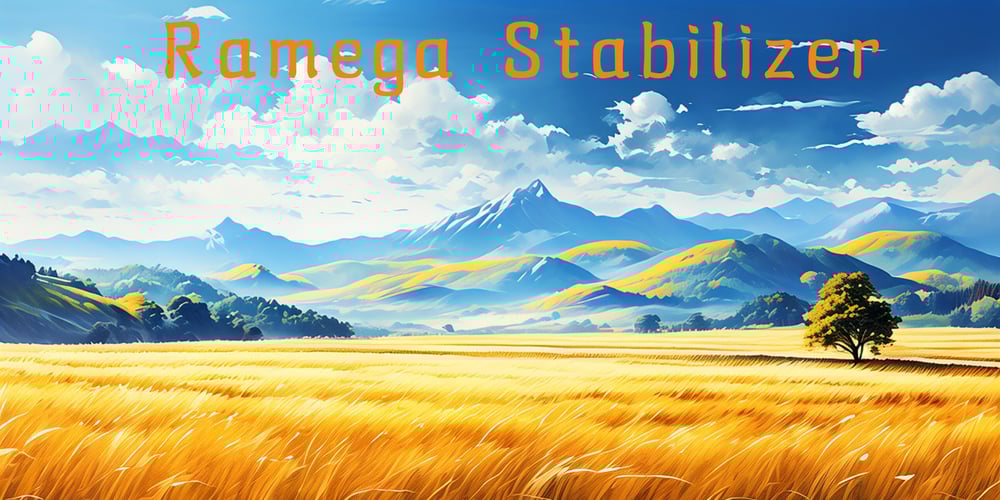
Ramega Stabilizer Font Family was designed by Apollo Zhang and published by Ramega. Ramega Stabilizer contains 1 styles and family package options. Presenting “Ramega Stabilizer,” a newly crafted English typeface reflecting the perfect harmony of art and tranquility. As the name suggests, this font is a symbol of stability and reliability, designed to impart a tone of sincerity to your creations.Delving into the heart of artistic typography, “Ramega Stabilizer” carries the robust strokes of a meticulously crafted font, providing a sense of weight and substance in every character. Its style is defined by a sense of serene reclusiveness, serving as the backdrop to its heavy strokes, which echo the essence of calm assurance.Every character is sculpted with an artist’s precision, embodying the beauty of full-bodied strokes, whilst also carrying an understated flair. Despite its bold nature, the lettering retains a level of subtlety, making it versatile across a variety of applications.The “Ramega Stabilizer” is more than just a typeface. It encapsulates the spirit of stability and consistency, quietly demanding attention, not through flamboyance, but through its commitment to solid, reliable design. That unique blend of artistic flair and silent confidence makes “Ramega Stabilizer” the go-to choice for creators looking for a font that is as dependable as it is expressive. It is a font that presents itself not through sheer boldness, but through a dance of restraints and artistic discretion.Overall, “Ramega Stabilizer” is a celebration of art and dependability, making it an exceptional choice for creators, looking for a typeface that not only impresses on first sight but also continues to instill a sense of trust and consistency.